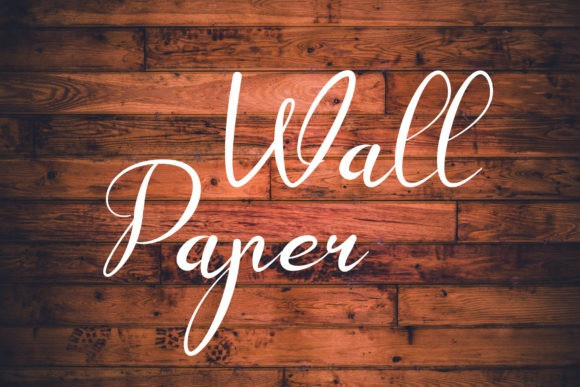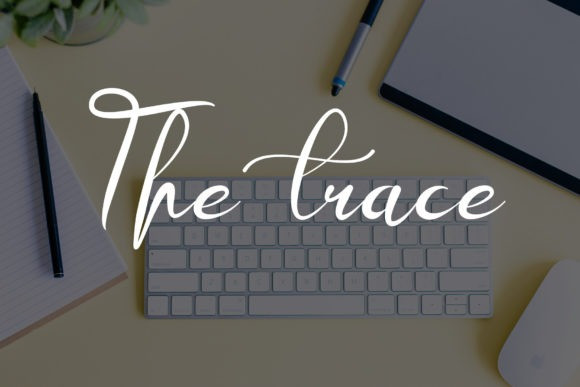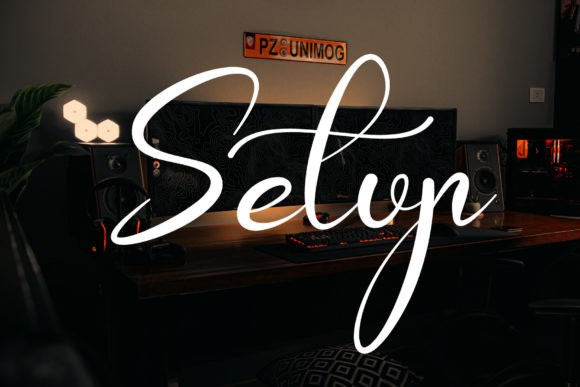
Setup Script Font
Setup Script font, has a charming and elegant feel. It looks great on wedding invitations, thank you cards, quotes, greeting cards, logos, business cards and any other design that needs a handwritten touch.